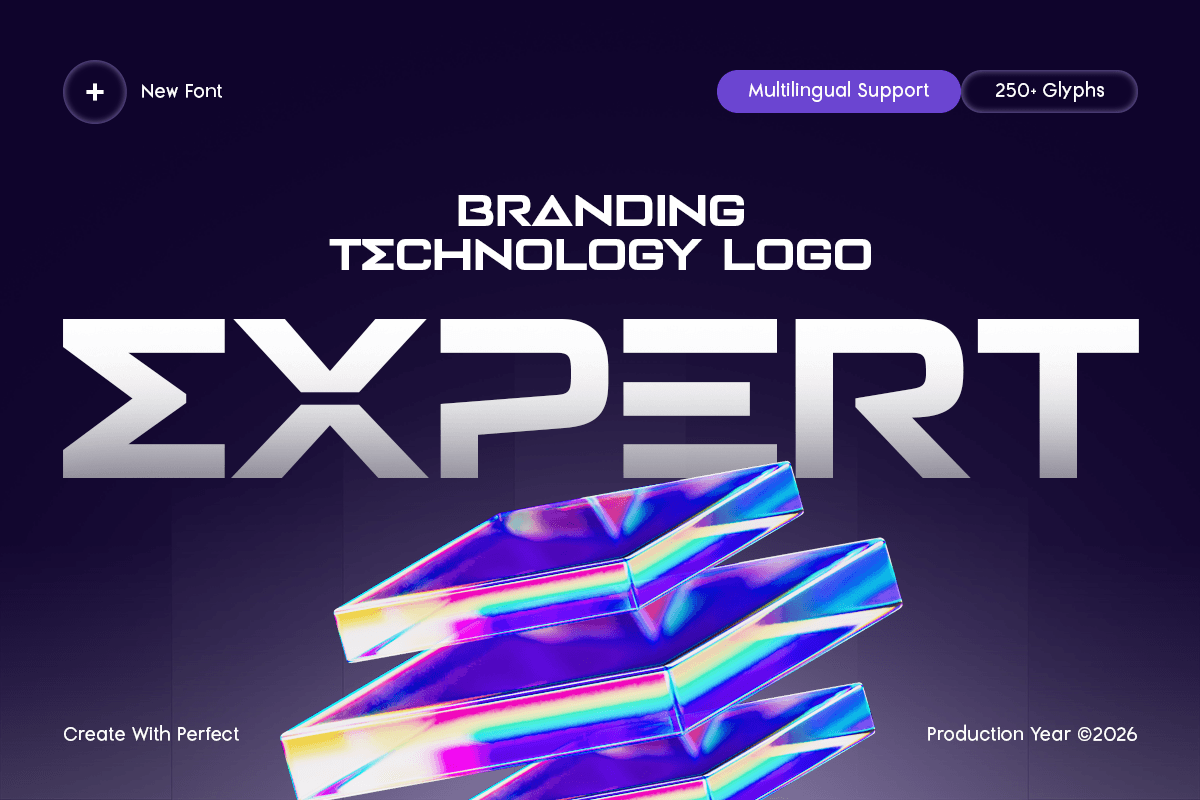
Expert
EXPERT is a branding technology logo font designed to deliver clean precision, digital confidence, and modern visual impact. With sleek letterforms, balanced spacing, and a technology-inspired structure, this typeface creates a professional brand tone that feels innovative, sharp, and instantly ready for future-focused identities.
Built for tech-driven branding, EXPERT works beautifully across logos, wordmarks, startup identities, UI graphics, website headers, app visuals, product launches, presentations, social media campaigns, and futuristic promotional layouts. Its clean technology character keeps every composition readable while adding a polished digital edge across both print and screen.
Whether you’re building a software brand, creating a tech startup logo, designing digital product visuals, or crafting modern innovation campaigns, EXPERT provides a strong typographic foundation that makes your identity feel sleek, smart, and unforgettable.
Inspiration Behind EXPERT
EXPERT is inspired by modern technology branding and digital interface typography—where clean geometry, precise spacing, and professional clarity create strong brand recognition. The design focuses on sleek structure and innovative simplicity to support logos, digital products, and future-ready communication.
EXPERT Font Features:
Technology-inspired letterforms optimized for logo and wordmark design
Clean modern structure for sleek branding and digital clarity
Strong readability for headlines, UI, and professional layouts
Perfect for technology brands, startups, and digital products
Tech logos, wordmarks, and startup brand identity systems
UI graphics, website headers, apps, and digital product typography
Software branding, product launches, and innovation campaigns
Presentations, dashboards, and modern corporate visuals
Social media graphics, digital ads, and high-tech marketing assets
Build a smarter digital identity with EXPERT—a technology logo font made for sleek, professional branding. ⚡